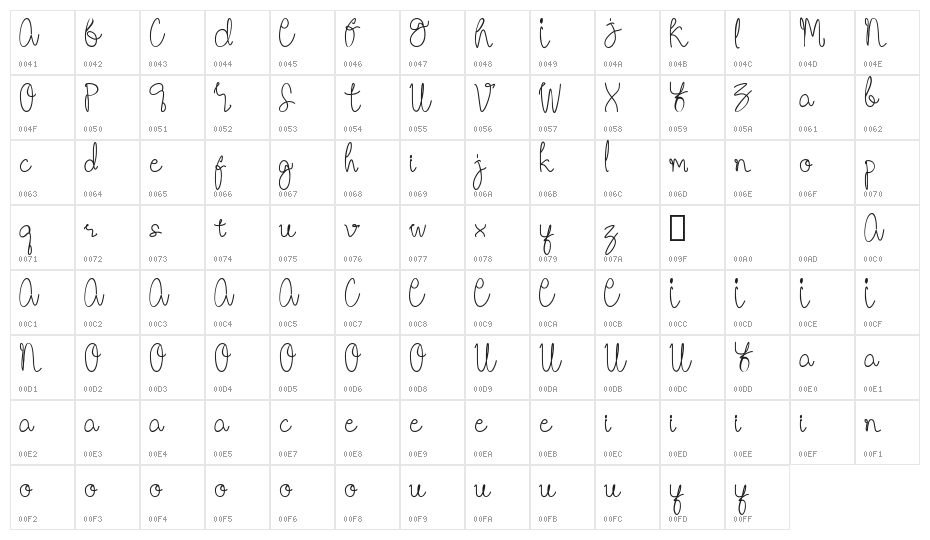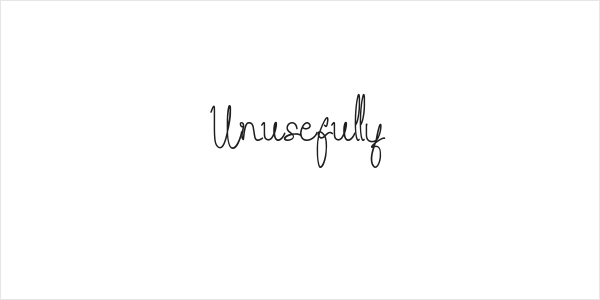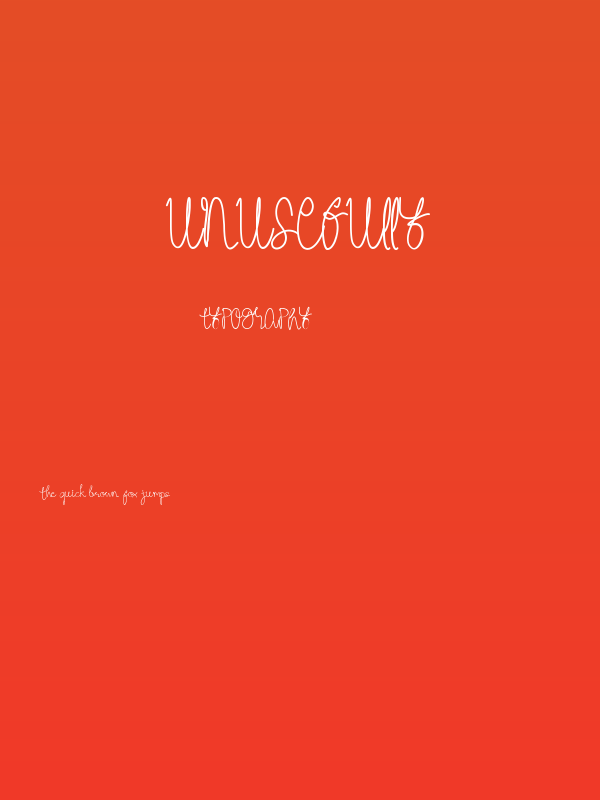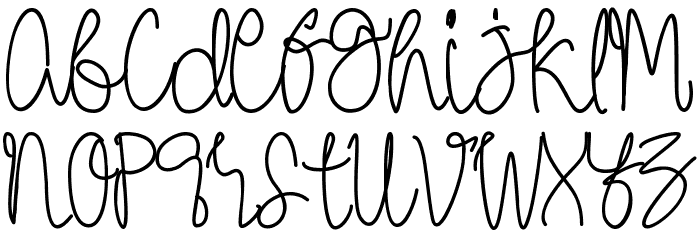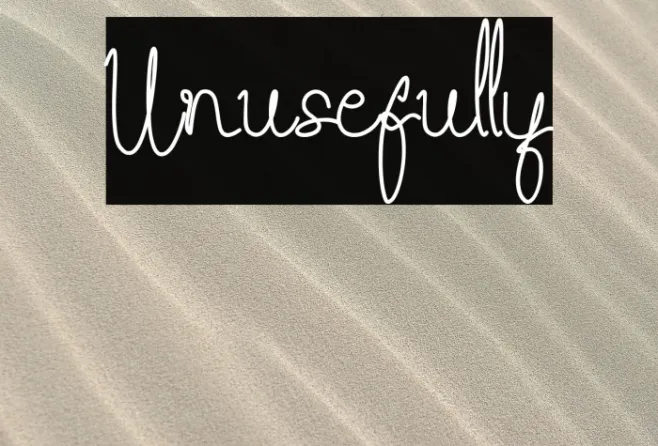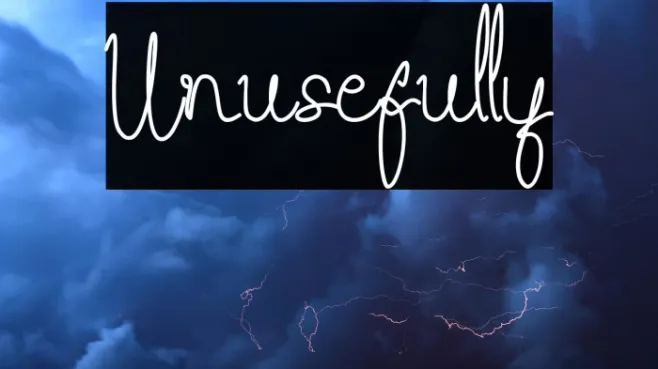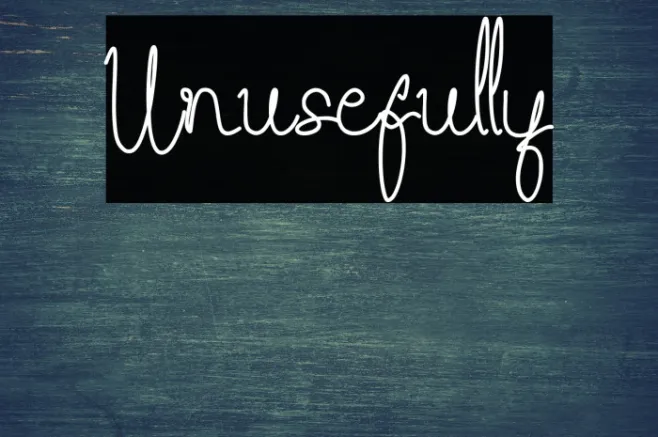
Unusefully Font
Unusefully Description
This font features a playful and whimsical script style, characterized by its flowing, interconnected letters that mimic a handwritten aesthetic. The strokes are consistent in width, giving it a uniform appearance, while the loops and curves add a sense of movement and dynamism. The uppercase and lowercase letters maintain a cohesive look, with the uppercase being slightly more elaborate. The numbers and special characters follow the same fluid style, ensuring a harmonious overall design. This font exudes a casual and friendly vibe, making it suitable for projects that require a personal touch.
| Overall Style | Casual, Whimsical |
| Proposed Projects | Ideal for greeting cards, invitations, personal branding, and creative projects that benefit from a casual, handwritten look. |